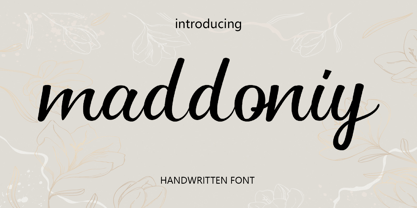
The Maddoniy
The The Maddoniy Font Family was designed by Al Muzammil and published by Mars Creative. The Maddoniy contains 1 styles. More about this family
"Maddoniiy" is a handwritten font with a natural and elegant style. Its smooth strokes and casual flow create a modern handwritten look that feels warm and personal. Perfect for branding, invitations, greeting cards, quotes, logos, posters, and social media content, this font adds a touch of authenticity and charm to any design project. It conveys: Natural & Personal ✍️ Elegant & Stylish ✨ Modern & Versatile 💫